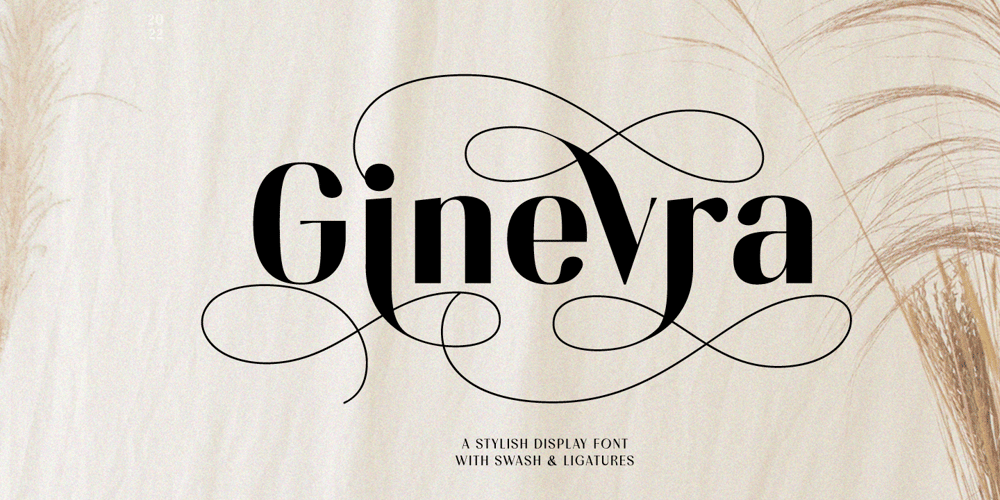
Ginevra Font Family was designed by Hendry Juanda and published by Letterhend. Ginevra contains 1 styles and family package options. Ginevra is a sophisticated sans serif with swashes and ligatures. It has unique high contrast between the body of the letters with the swashes which makes it different than the others. Perfectly to be applied to the other various formal forms such as invitations, labels, logos, magazines, books, greeting / wedding cards, packaging, fashion, make up, stationery, novels, labels or any type of advertising purpose.Features : Uppercase and lowercase numbers and punctuation multilingual swashes & ligatures PUA encoded We highly recommend using a program that supports OpenType features and Glyphs panels like many of Adobe apps and Corel Draw, so you can see and access all Glyph variations.